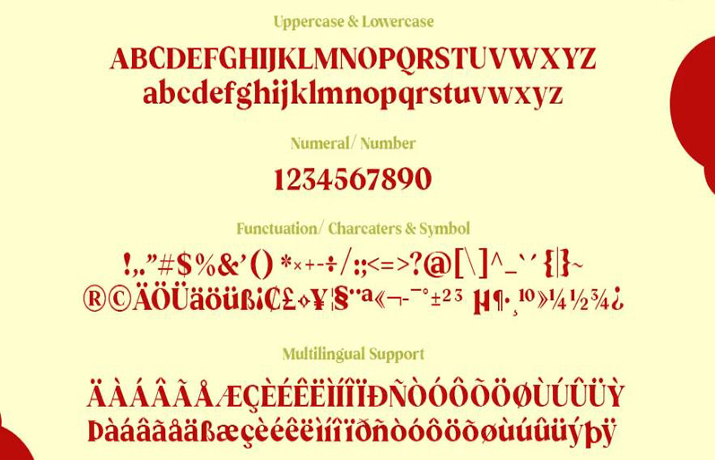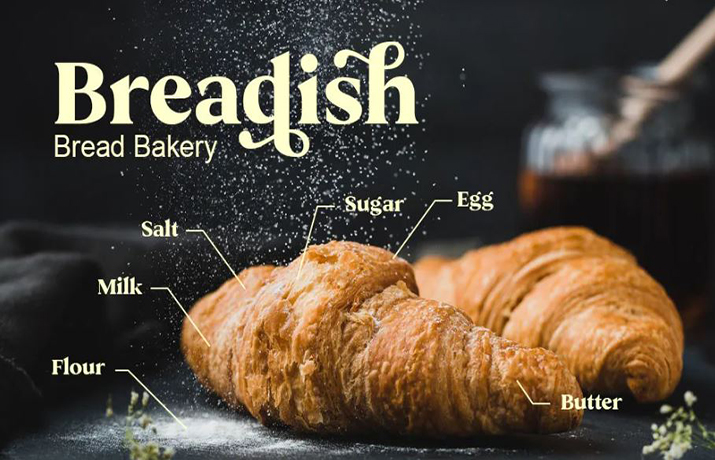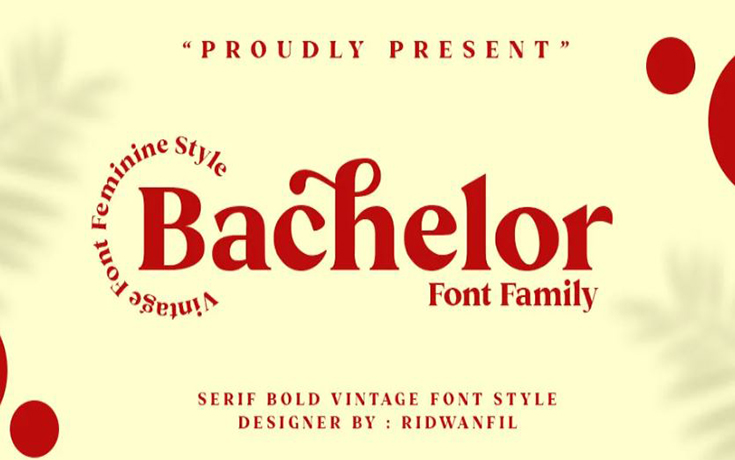
The Bachelor Font is a stylish serif typeface that has high contrast and a sharp wedge serif design. Well-suited for headlines & fancy logos.
This amazing font was created and shared by Ridwanfil that is a Logo & Branding Designer, also Founder at Ridtype Foundry.
It is structured in a unique way in which you will see that the designer adds solid strokes with a curve appearance.
This font features three styles such as regular, bold, and italic. And also includes uppercase letters, lowercase letters, numbers, punctuation, and special characters.
The font is most commonly used for the band’s album artwork. However, it can also be used for other purposes, such as creating t-shirts, posters, business cards, t-shirts, labels, and websites.